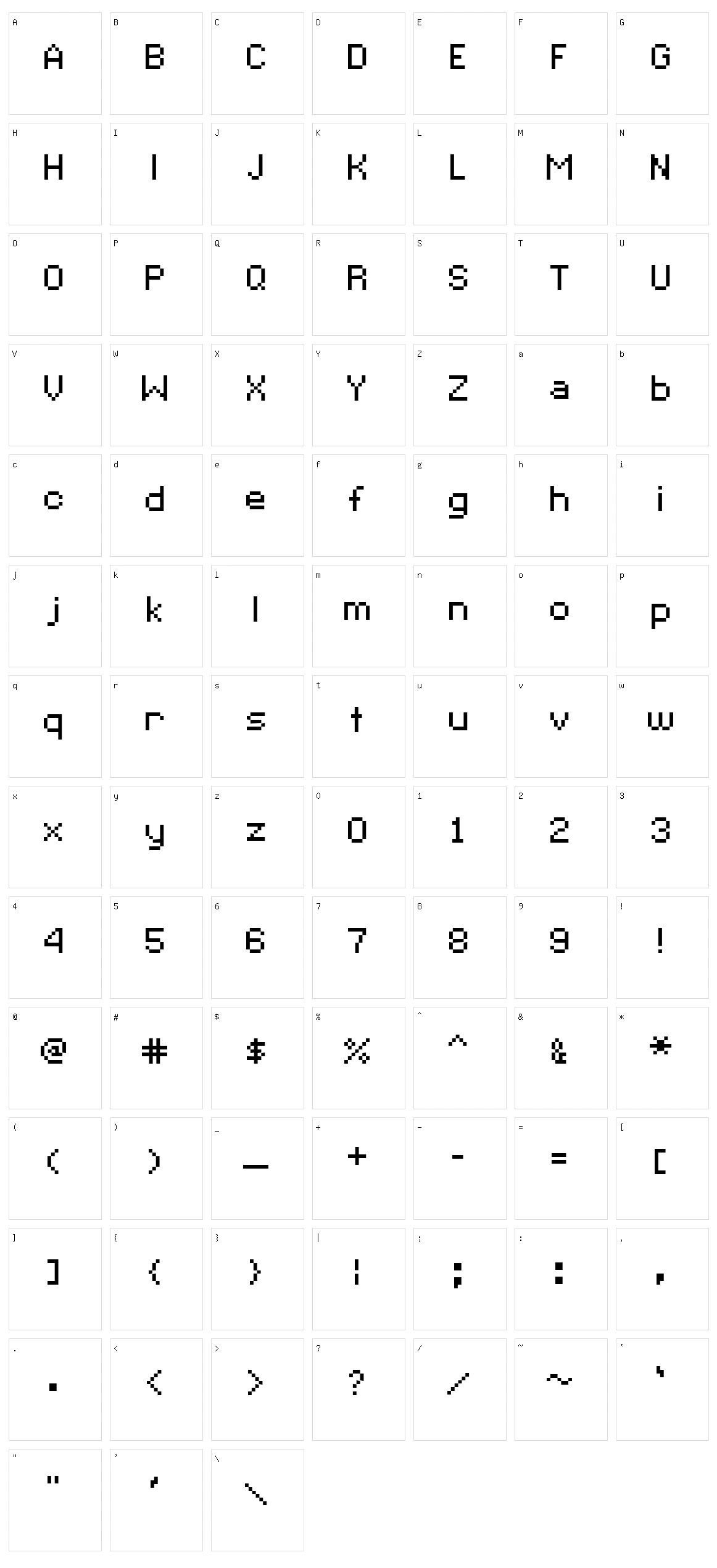
C&C Red Alert
Designed by: N3tRunn3r
Do you know the fonts of the Command & Conquer classics such as C&C: Red Alert?
My plans were to firstly re-create these fonts for a personal use, for my C&C website and later for the C&C community.
Today I want to provide you with these fonts!
My "C&C: Red Alert [Internet] (TrueType)" font is a minifont or also called as a pixelfont.
Pixelfonts are very small but in a way amazingly beautiful looking and fascinating fonts.
These kind of fonts are mostly best by using them in sizes between 8pt and 12pt.
It depends by their developer's thoughts and usage.
I personally commend using my C&C: Red Alert fonts in a size of 10pt!
This size is also the original one which is used within Command & Conquer and C&C: Red Alert.
This "C&C: Red Alert [Internet] (TrueType)" font is that one being used inside the C&C: Red Alert Internet lobby.
Some character additions and updates to my fonts were done as well.
Please notice that a lot of signs, symbols, and special characters are still missing, but will be added in future.
Command & Conquer and Command & Conquer: Red Alert are still popular RTS games, developed by Westwood.
Both games were released in year 1995 and 1996.